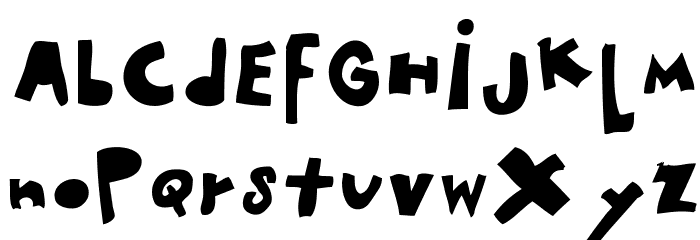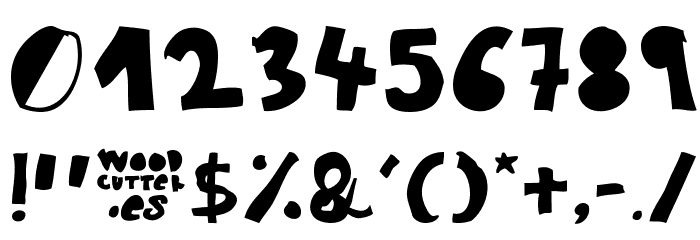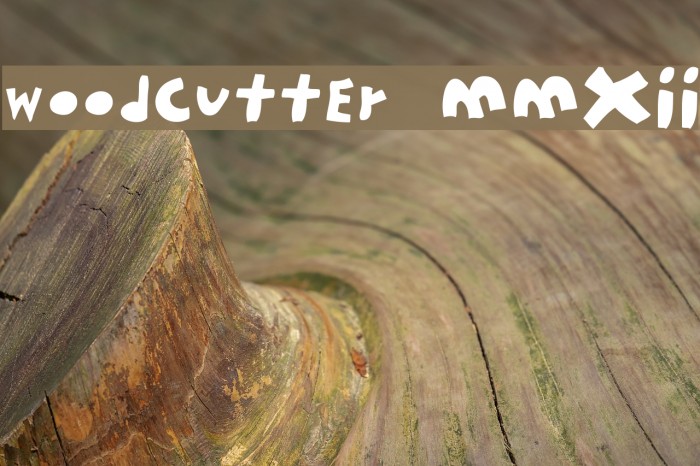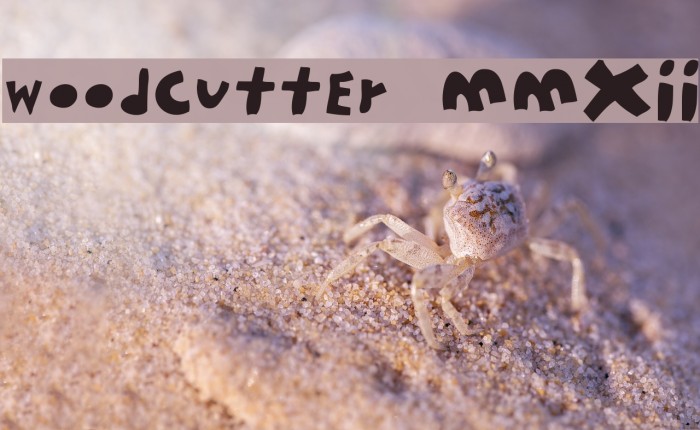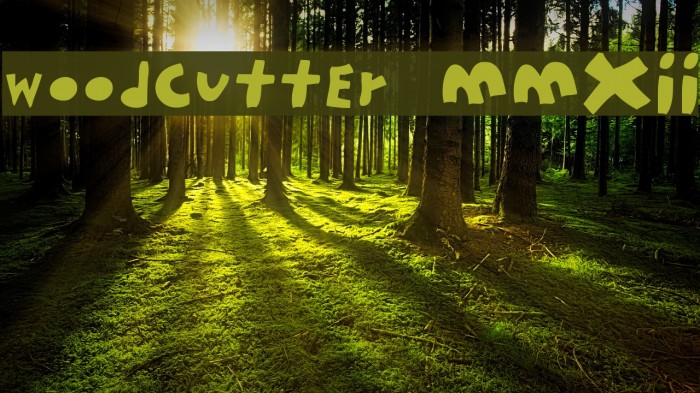
woodcutter MMXII Font
This font exhibits a playful and bold style with irregular, hand-drawn characters that convey a sense of whimsy and creativity. The letters are unevenly shaped, with varying thicknesses and a slightly rough texture, giving it a handcrafted appearance. The uppercase and lowercase letters maintain a consistent style, while the numbers and special characters follow suit with the same quirky design. The overall look is informal and artistic, making it ideal for projects that require a fun and engaging visual impact.
A playful, hand-drawn font with bold, irregular characters.
- Proposed Projects: Ideal for children's books, creative posters, playful branding, and artistic event invitations.
- Overall Style: Playful, Artistic